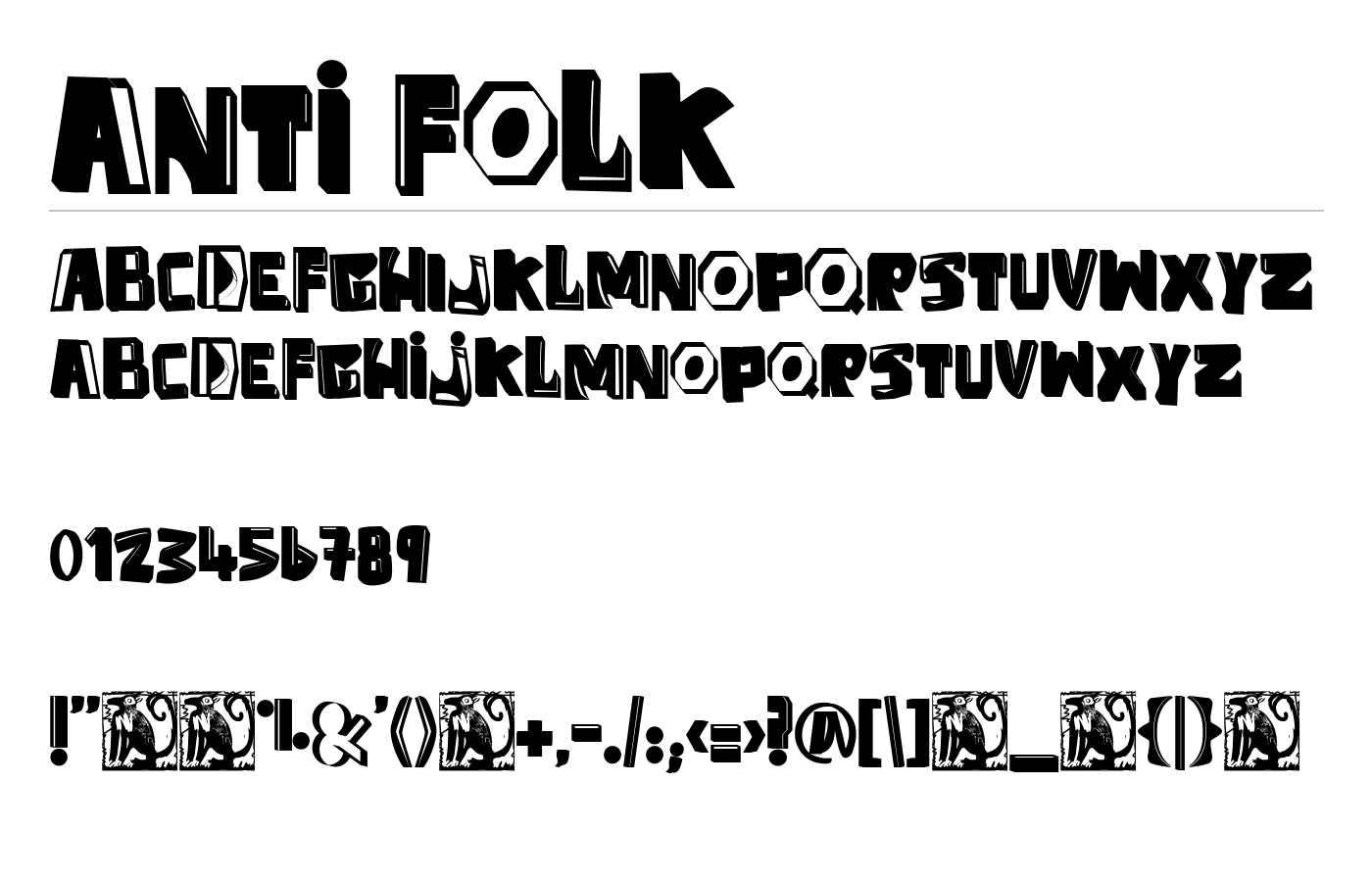
Anti Folk is a bold, decorative sans serif font with an eclectic, handcrafted feel. Its irregular, chunky letterforms and quirky shapes give it a playful, artistic vibe, making it perfect for creative headlines, posters, and branding that wants to stand out with an unconventional, folk-inspired style. This font adds personality and a touch of whimsy, ideal for projects seeking a unique and eye-catching look.
anti folk Font
About anti folk Font
| Font family | anti folk Font |
| Designer | paintblack |